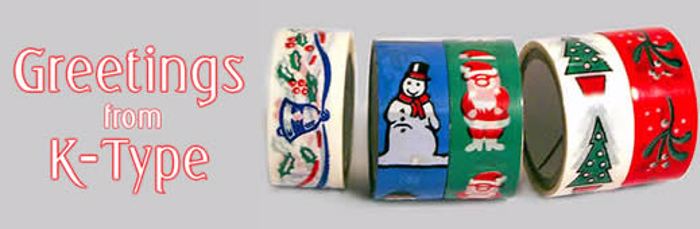
Greetings Font
A contemporary typeface with an old-fashioned feel, originally inspired by the cover lettering of ‘My Book About Christmas’ by Joan Gale Thomas, 1946.